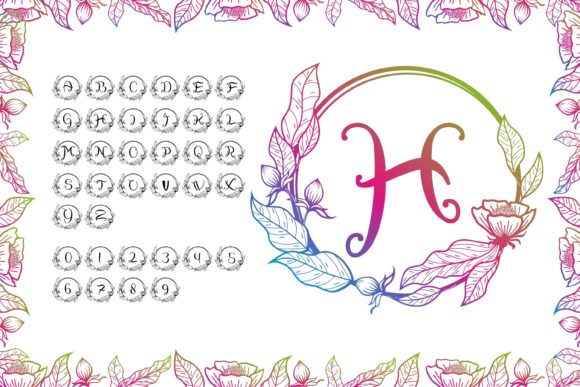
Introducing Florilla Fista Font: Elevate Your Designs with a Beautiful Sunflower Theme
Are you a designer or crafter looking for a unique and eye-catching font to add a personal touch to your creations? Look no further than Florilla Fista Font, a stunning sunflower decoration theme that’s sure to brighten up any design project. With its beautiful floral ornaments and lush floral plants, this font is the perfect addition to invitations, business cards, book cover designs, and more.
What is Florilla Fista Font?
Florilla Fista Font is a decorative font that features a gorgeous sunflower theme, complete with intricate floral ornaments and lush greenery. This beautiful font is perfect for designers and crafters who want to add a touch of elegance and sophistication to their work. Whether you’re creating wedding invitations, business cards, or book covers, Florilla Fista Font is sure to make your designs stand out.
Key Features of Florilla Fista Font
- Beautiful Sunflower Theme: Florilla Fista Font features a stunning sunflower theme that’s sure to brighten up any design project.
- Floral Ornaments: The font includes a range of beautiful floral ornaments that add a touch of elegance and sophistication to your designs.
- Lush Floral Plants: The font also features lush floral plants that add a touch of greenery to your designs.
- Versatile: Florilla Fista Font is perfect for a range of design projects, including invitations, business cards, book covers, and more.
How to Use Florilla Fista Font
- Wedding Invitations: Use Florilla Fista Font to create beautiful wedding invitations that set the tone for a stunning wedding celebration.
- Business Cards: Add a touch of elegance to your business cards with Florilla Fista Font.
- Book Covers: Use Florilla Fista Font to create eye-catching book covers that grab the attention of potential readers.
- Party Decorations: Use Florilla Fista Font to create party decorations, such as banners and garlands, that match your theme.
Benefits of Using Florilla Fista Font
There are many benefits to using Florilla Fista Font in your design projects. Here are a few:
- Unique and Eye-Catching: Florilla Fista Font is a unique and eye-catching font that’s sure to make your designs stand out.
- Elegant and Sophisticated: The font adds a touch of elegance and sophistication to your designs, making it perfect for special occasions.
- Versatile: Florilla Fista Font is versatile and can be used in a range of design projects.
Tips for Getting the Most Out of Florilla Fista Font
Here are a few tips for getting the most out of Florilla Fista Font:
- Experiment with Different Sizes: Experiment with different font sizes to find the perfect size for your design project.
- Pair with Other Fonts: Pair Florilla Fista Font with other fonts to create a unique and eye-catching design.
- Use in Combination with Images: Use Florilla Fista Font in combination with images to create a stunning design.
Florilla Fista Font is a beautiful sunflower decoration theme that’s perfect for designers and crafters who want to add a touch of elegance and sophistication to their work. With its stunning floral ornaments and lush floral plants, this font is sure to make your designs stand out. Whether you’re creating wedding invitations, business cards, or book covers, Florilla Fista Font is the perfect choice.